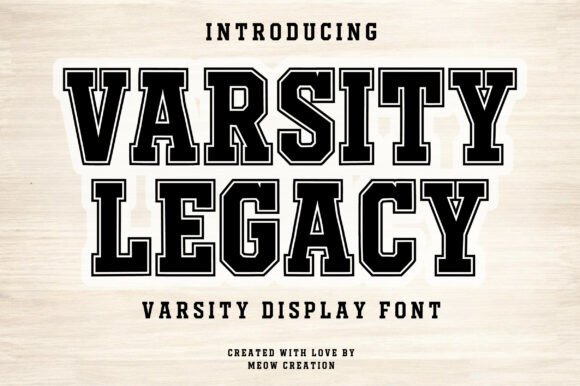
Varsity Legacy: A Bold Font for Timeless Design
Varsity Legacy is more than just a font—it’s a design statement. With its strong, collegiate-style structure, it brings the energy of sports and academia into every project. Whether you're creating a logo, designing a poster, or developing branding materials, this font adds a premium feel that stands out.
At first glance, Varsity Legacy feels familiar. Its bold block shapes and clean lines evoke the look of vintage sports banners, university emblems, and championship signs. This font isn’t just about style; it’s about personality. It carries the spirit of varsity teams, school pride, and athletic tradition. The result is a typeface that feels authentic, confident, and powerful—perfect for any project that needs to make an impression.
What Makes Varsity Legacy Unique?
Varsity Legacy combines the best of classic typography with modern design sensibilities. Its letterforms are structured yet expressive, making it ideal for both large-scale display and smaller text applications. Unlike many other fonts, it doesn’t sacrifice clarity for style. Each character is carefully crafted to maintain legibility while still delivering a strong visual impact.
The font’s personality is rooted in its heritage. It draws inspiration from traditional university graphics and sports lettering, which gives it a timeless appeal. This makes it a great choice for projects that want to feel nostalgic or authentic. Whether you’re working on a t-shirt design, a team logo, or a promotional poster, Varsity Legacy helps convey a sense of tradition and excellence.
One of the standout features of Varsity Legacy is its versatility. It works well in both digital and print formats, making it a valuable asset for designers, marketers, and small business owners. Its boldness ensures it commands attention, while its clean structure keeps it professional and easy to read.
Where Varsity Legacy Shines
Varsity Legacy excels in a wide range of design applications. For logos and branding, it adds a strong, memorable identity that resonates with audiences. In editorial design, it can be used for headlines, captions, or section dividers to create visual interest without overwhelming the reader.
In packaging design, the font’s bold and clean style helps products stand out on shelves. It’s also a great choice for web design, where it can be used for headers, buttons, or call-to-action elements. Its readability at different sizes makes it suitable for both large displays and smaller screens.
For social media graphics, Varsity Legacy brings a premium, professional look that aligns with brand aesthetics. It’s especially effective in posts that aim to communicate energy, confidence, or authority. When paired with other fonts, it can help establish a clear visual hierarchy and reinforce brand messaging.
Personal projects also benefit from Varsity Legacy. Whether you're creating custom merchandise, designing a personal website, or working on a hobby project, this font adds a polished, professional touch that elevates the overall look.
How Varsity Legacy Influences Design
When used effectively, Varsity Legacy can significantly impact how a design is perceived. Its bold, blocky structure creates a strong visual presence, making it ideal for headlines and key messages. This helps guide the viewer’s eye and emphasizes important information.
Readability is another key factor. Despite its boldness, Varsity Legacy maintains a high level of clarity, even at smaller sizes. This makes it suitable for a variety of applications, from posters to product labels. It also ensures that your message remains clear and accessible to your audience.
Brand perception is closely tied to typography. Using a font like Varsity Legacy can help establish a brand as professional, authoritative, and trustworthy. It conveys a sense of strength and confidence that resonates with consumers, especially in industries like sports, education, and retail.
Consistency is also important in design. Varsity Legacy offers a cohesive look across different mediums, helping to maintain a unified brand identity. Whether you're designing a website, a brochure, or a social media post, using this font ensures a consistent visual language that strengthens brand recognition.
Choosing the Right Font for Your Project
When considering Varsity Legacy, start by evaluating your project’s goals. Is it for a sports brand, a college event, or a commercial product? Understanding the context will help determine if this font is the right fit. Its bold, collegiate style may not work for every project, but when used appropriately, it can add a unique and impactful element.
Testing font pairings is essential. Varsity Legacy pairs well with other bold or serif fonts for a strong, professional look. It also works with sans-serif fonts for a modern, clean aesthetic. Experimenting with different combinations can help you find the perfect balance for your design.
Readability should always be a priority. Even the most stylish font won’t work if it’s hard to read. Test Varsity Legacy at different sizes and in different contexts to ensure it meets your needs. Pay attention to spacing, contrast, and overall legibility to avoid potential issues.